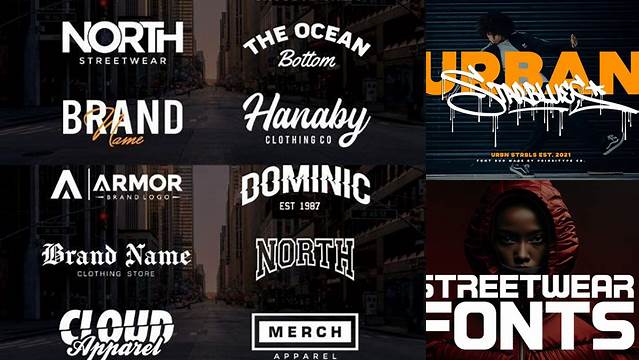
Download Free Streetwear Logo Fonts
Hey guys! If you're diving into the awesome world of streetwear design, you know that the right font can make or break your logo. It's like the secret sauce, the cherry on top, the je ne sais quoi that elevates your brand from just another design to a statement. And the best part? You don't always have to break the bank to get killer fonts! This guide is all about streetwear logo fonts free download options that will have your designs looking fresh, fly, and totally on-trend. Let's get into it, shall we?
1. Defining the Streetwear Aesthetic: What Makes a Great Logo Font?
Alright, before we jump into the streetwear logo fonts free download frenzy, let's chat about what actually makes a font fit the streetwear vibe. Streetwear is all about attitude, rebellion, and a touch of urban grit. Think bold, often chunky, sometimes hand-drawn, and always impactful. The goal is to grab attention, convey a message, and represent the brand's identity at a glance. So, when hunting for streetwear logo fonts free download, you'll want to look for fonts that embody these characteristics. Consider the following:
- Readability: Even if a font is super cool, it needs to be readable. Your audience needs to understand your brand name! Especially when using the streetwear logo fonts free download option, make sure that it's clear and concise.
- Personality: Does the font feel edgy, playful, minimalist, or vintage? Match the font to your brand's overall personality. If you have a rebellious brand, choose fonts that really scream attitude. And, with streetwear logo fonts free download, make sure to match it with your brand's personality.
- Originality: While it's okay to take inspiration, try to find fonts that stand out from the crowd. Avoid overly used fonts to keep your brand unique. The search of streetwear logo fonts free download will assist you on this.
- Versatility: Can the font be used on different mediums (clothing, websites, social media)? Versatility is key, especially if you plan to get a streetwear logo fonts free download.
When exploring these websites for streetwear logo fonts free download, always double-check the license to ensure you can use the font for your specific project.
3. Recommended Streetwear Logo Fonts: Free Download Picks
Okay, let's get down to brass tacks! Here are some specific font styles and examples you can search for when you want a streetwear logo fonts free download:
- Bold Sans-Serif Fonts: These are the workhorses of streetwear. They're clean, modern, and easily readable. Some great examples to look for include:
- Roboto: A versatile, easy-to-read font that works well for various applications. It's a great streetwear logo fonts free download choice.
- Montserrat: A geometric sans-serif that's both stylish and functional. Easily a streetwear logo fonts free download option.
- Bebas Neue: A tall, condensed font with a strong presence. It's a classic for a reason. Great streetwear logo fonts free download selection.
- Chunky Display Fonts: These fonts make a statement. Look for fonts with thick strokes, unique shapes, and a bit of attitude. These options can be a streetwear logo fonts free download:
- Impact: A bold, in-your-face font that's perfect for making a statement. One of the best streetwear logo fonts free download options.
- Raleway: A sleek, minimalist sans-serif with several weights. A really amazing streetwear logo fonts free download choice.
Stay ahead of the curve by staying informed about these upcoming trends. Experiment with your streetwear logo fonts free download.
30. Conclusion: Choosing the Perfect Streetwear Logo Font
So there you have it, guys! The ultimate guide to finding the perfect streetwear logo fonts free download. Remember to choose a font that embodies your brand's personality, is easy to read, and aligns with your overall aesthetic. Don't be afraid to experiment, customize, and most importantly, have fun! Good luck with your designs – and happy downloading!